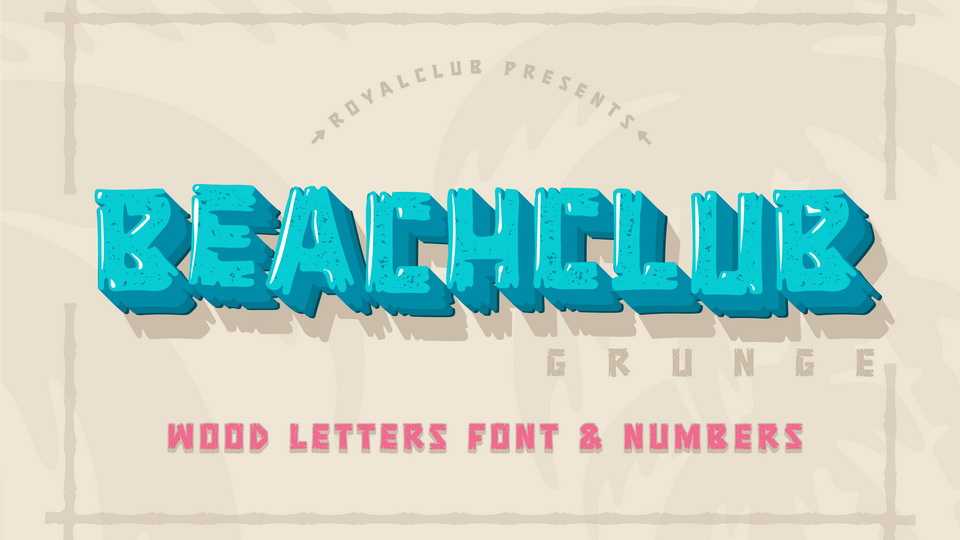
Download Beachclub Grunge font, a display typeface inspired by tropical islands hand-painted signs. Beachclub Grunge will be a great help and perfect fit for various posters, banners, typography and illustrations.
Designer: ROYALCLUB